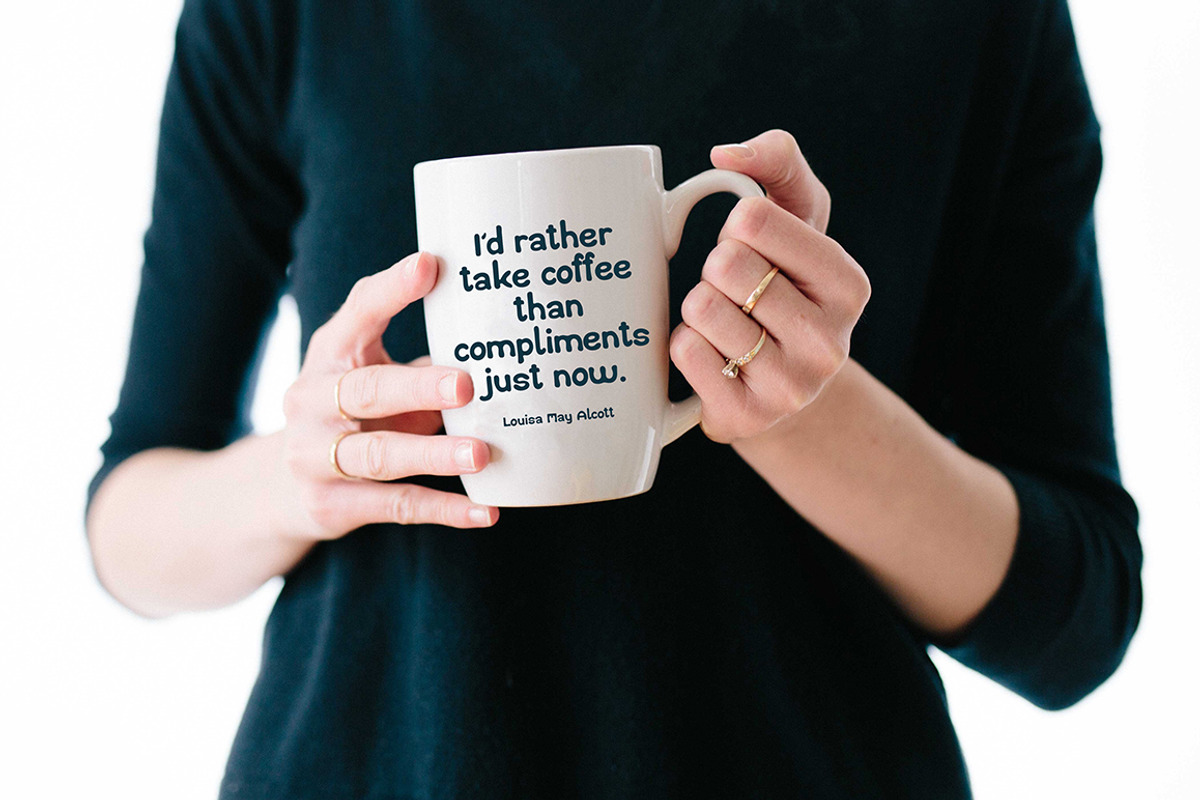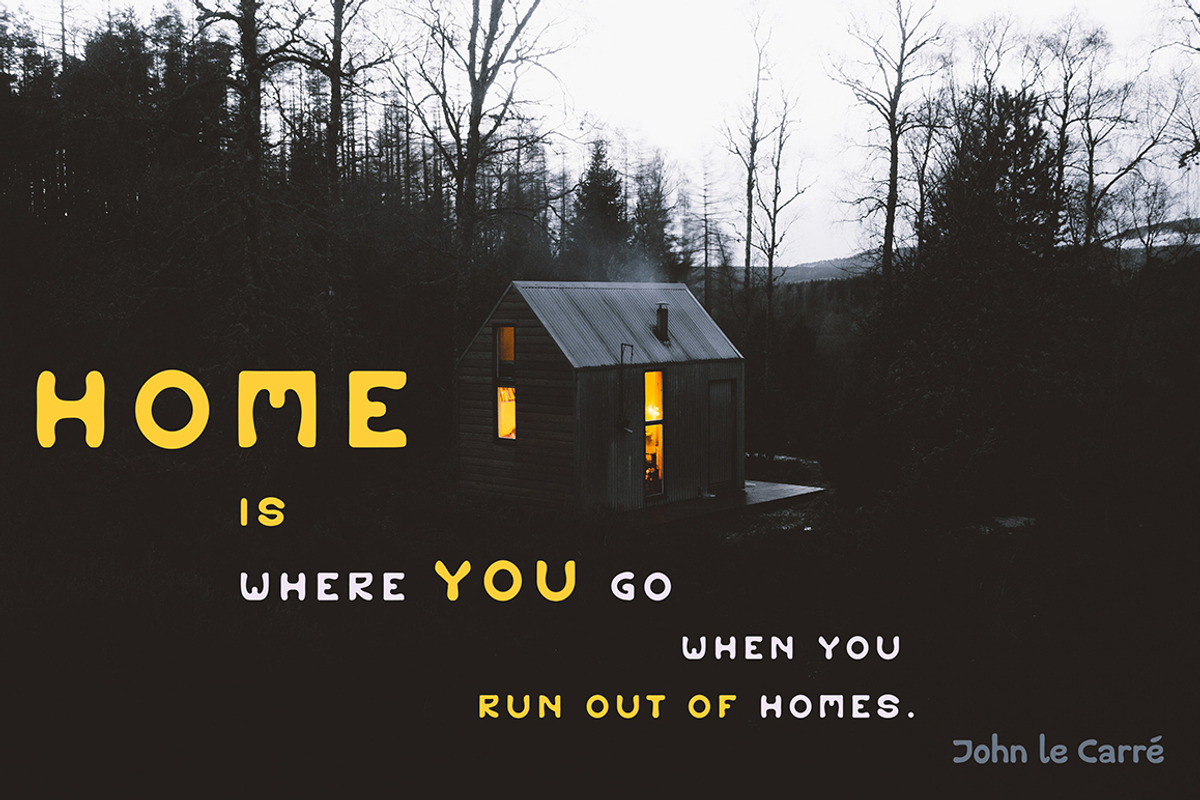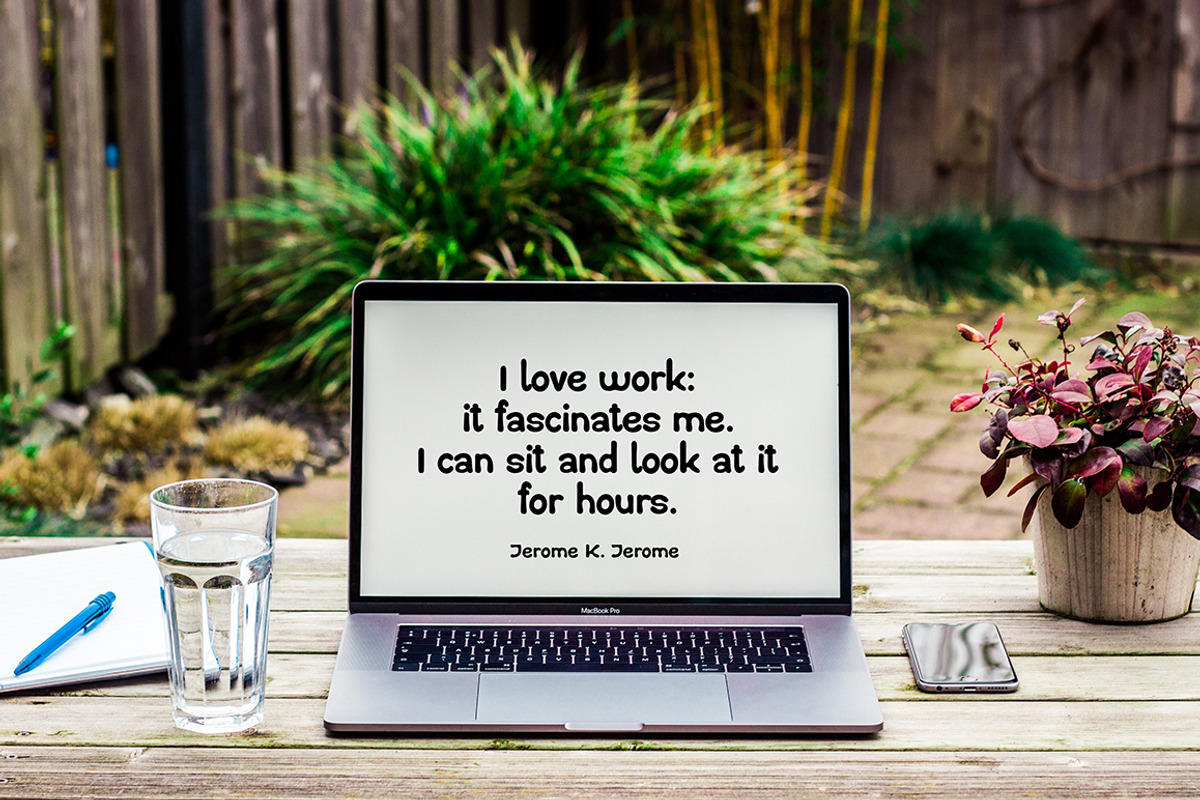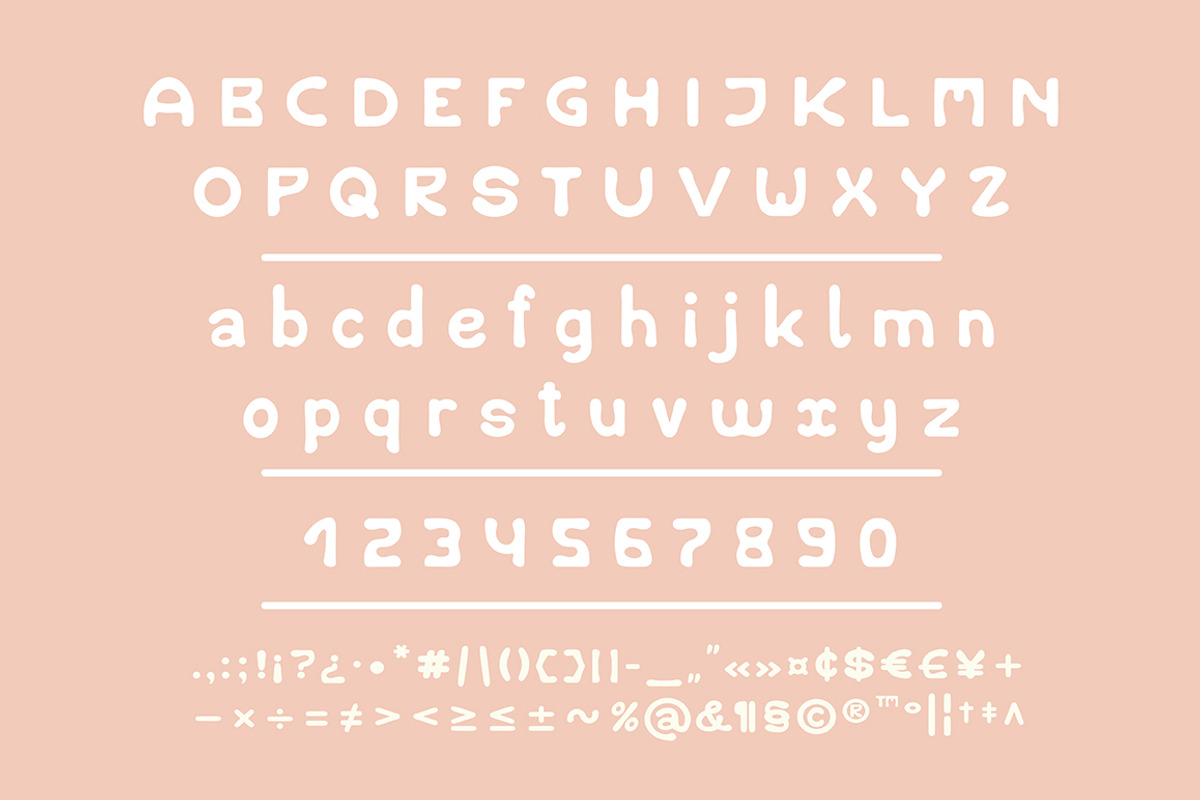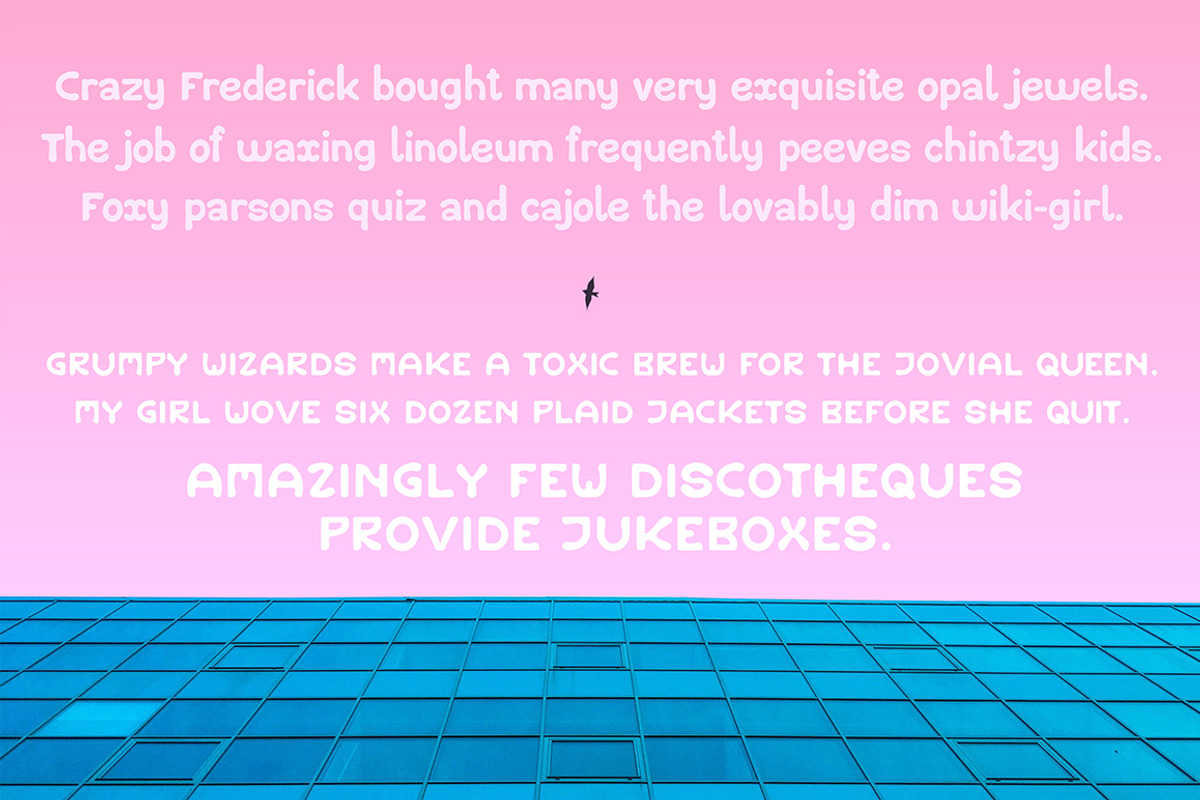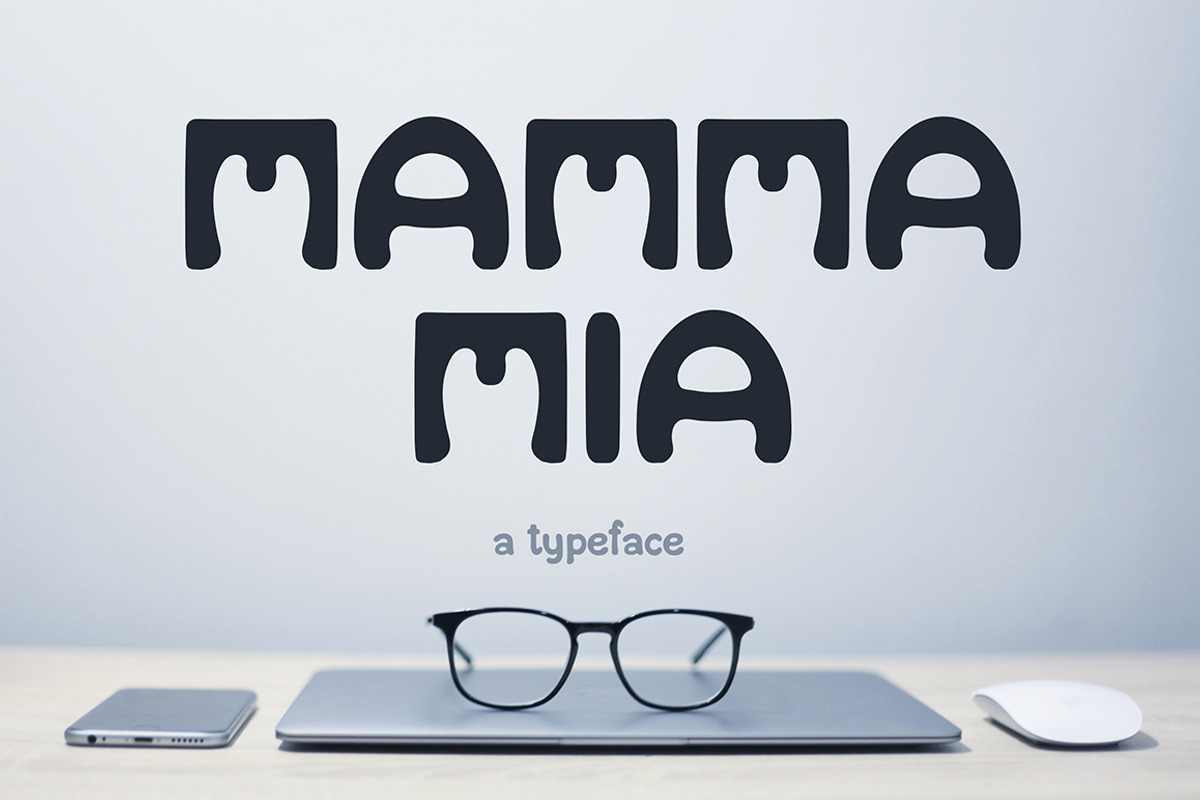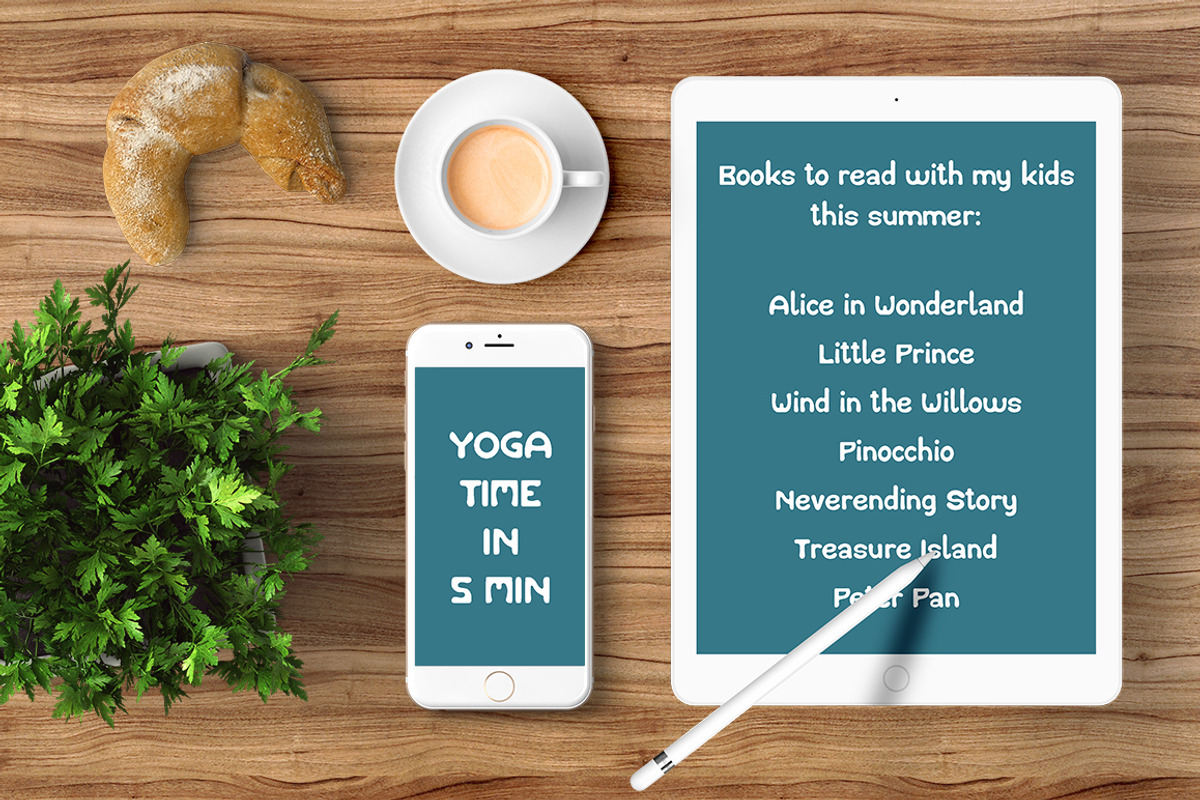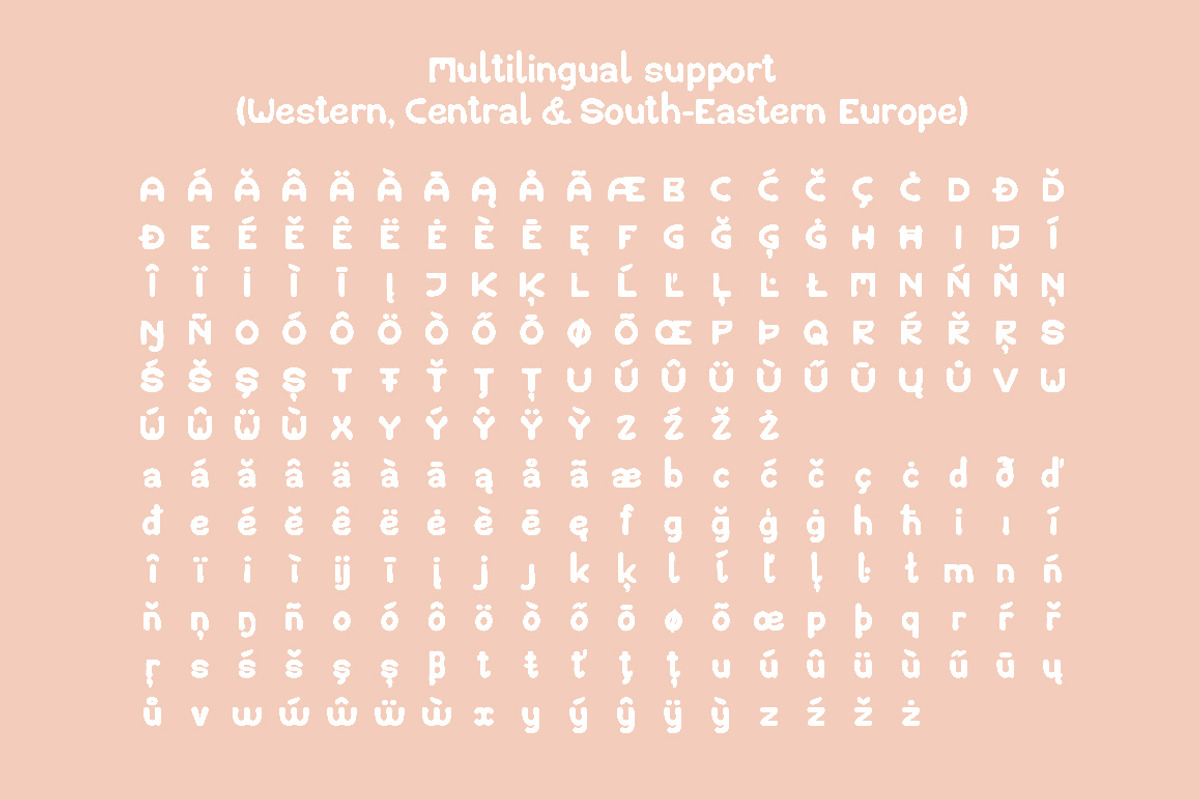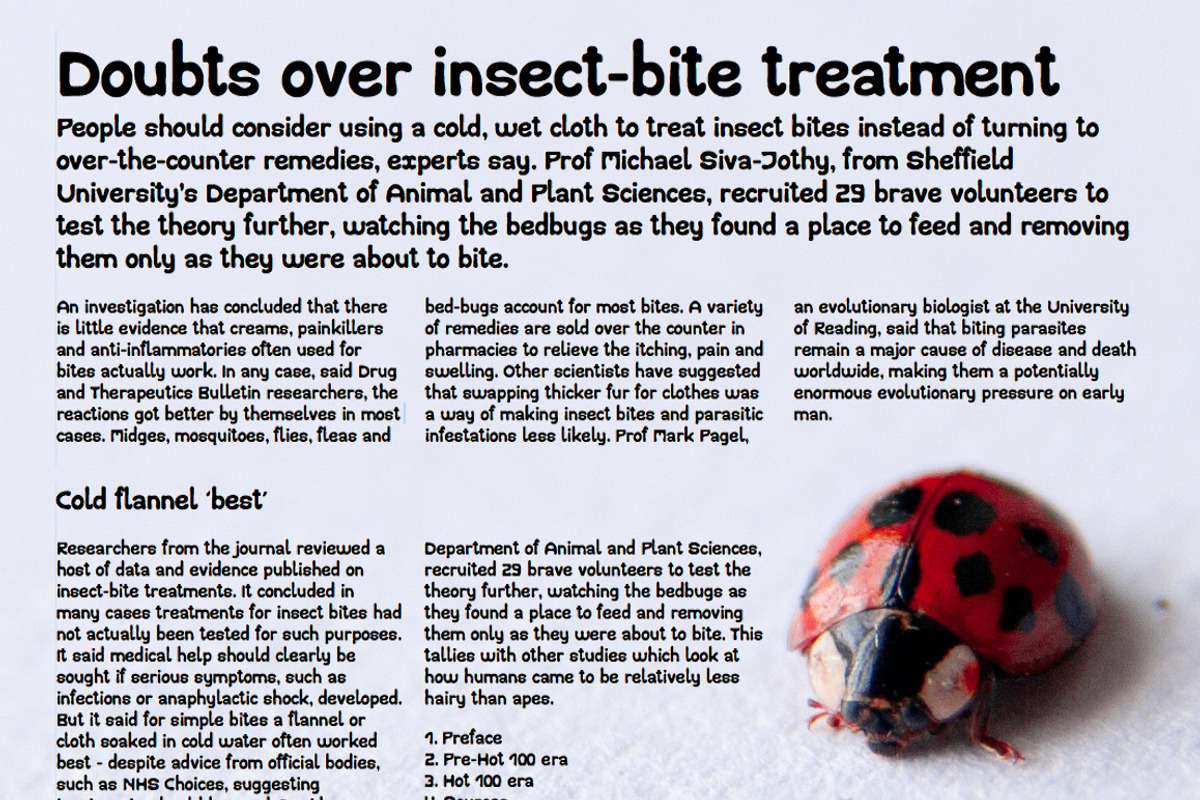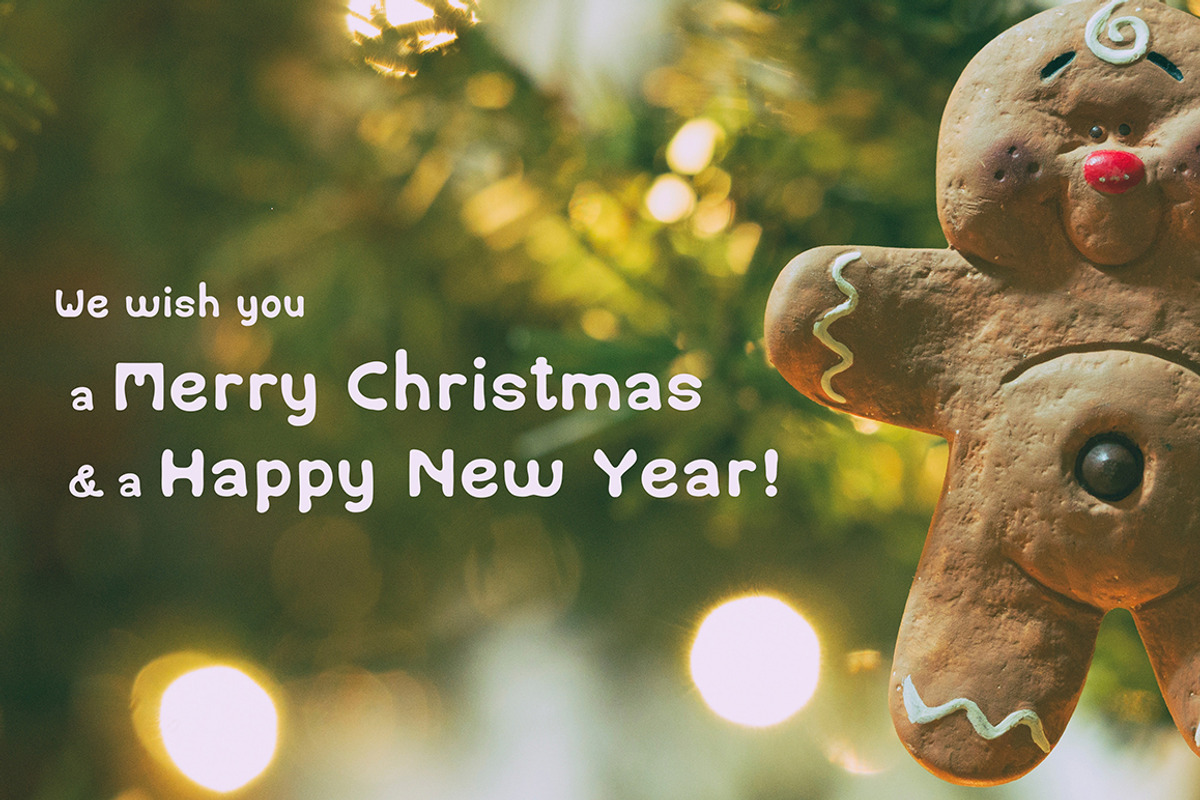
Mamma Mia / Fun Display Type
Mamma Mia includes:
- full set of uppercase and lowercase characters;
- numbers, symbols and punctuation;
- extended multilingual support (Western, Central and South-Eastern Europe).